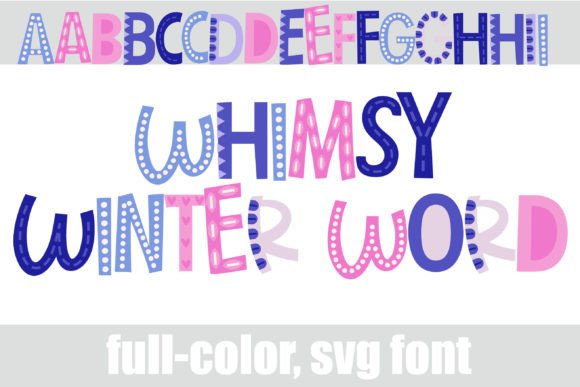
Whimsy Winter Word: A Creative Font for Seasonal Design
When you need a typeface that captures the magic of a frosty morning or the playful energy of a holiday campaign, Whimsy Winter Word delivers. This isn't just another script font; it's a full-color SVG display typeface designed to bring immediate personality and visual warmth to your projects. Its default palette of soft pinks and deep purples evokes a cozy, celebratory winter mood, making it a standout creative font for anyone looking to add a touch of seasonal charm.
Understanding the Whimsy Winter Word Typeface
At its core, Whimsy Winter Word is a premium font that functions as a modern typography asset. Its handwritten style blends a casual, approachable feel with enough structure to remain legible. The true magic, however, lies in its OpenType full-color SVG format. This technology allows the font to be rendered with multiple colors, gradients, and even texture effects directly within the letterforms, a feature impossible with traditional single-color fonts.
Where Whimsy Winter Word Shines Brightest
This typeface is a specialist, not a generalist. Its strength lies in specific applications where its unique character can be the star. Think of it as the perfect display font for headlines, logos, and short, impactful text blocks.
Evaluating Project Fit
Ask yourself: Does the project's tone match the font's personality? Whimsy Winter Word is joyful, festive, and slightly informal. It's perfect for a children's winter festival poster but less suited for a corporate financial report. Its best use is in projects where audience engagement and emotional connection are primary goals.
Mastering Font Pairing
The key to using a strong display font effectively is balance. Pair Whimsy Winter Word with a neutral, highly legible typeface. A geometric sans serif font like Montserrat or a classic serif font like Lora provides a clean, professional counterpoint. Use your whimsical font for the main headline and the simpler font for subheadings or body copy. This creates a clear readability path for the viewer.
Testing and Readability
Always test the font in your actual design software. Type out your full headline to see how the colors and letterforms interact. Check its readability at the intended size. While it's a vector-based SVG font that scales without quality loss, extremely small sizes can make the detailed color effects muddy. It's designed for impact, so give it space to breathe.
Leveraging Alternate Glyphs
Don't forget the additional styles. Accessing the alternate case characters through your software's glyph map or system character viewer can provide valuable variation. Swapping out a capital "W" or "S" for an alternate style can add custom flair to a logo design or monogram, making your work feel even more unique.
Ultimately, Whimsy Winter Word is more than just a winter-themed font. It's a versatile creative font that, when used strategically, can inject personality, celebrate seasons, and create memorable visual moments. It empowers designers, entrepreneurs, and creators to produce vibrant, professional-quality work that stands out in a crowded marketplace. By understanding its strengths and applying it thoughtfully, you can harness its full potential to delight your audience and strengthen your visual communication.